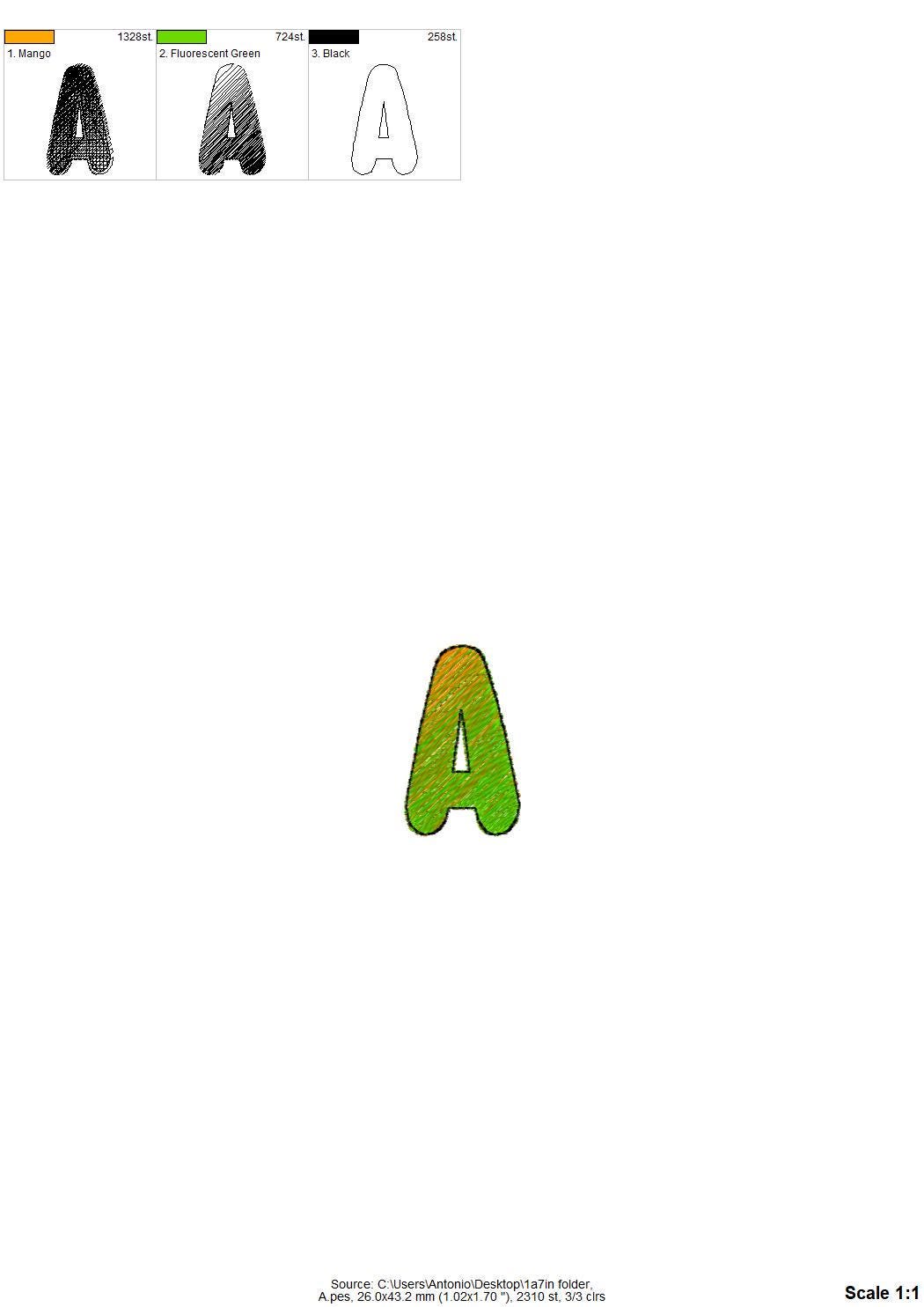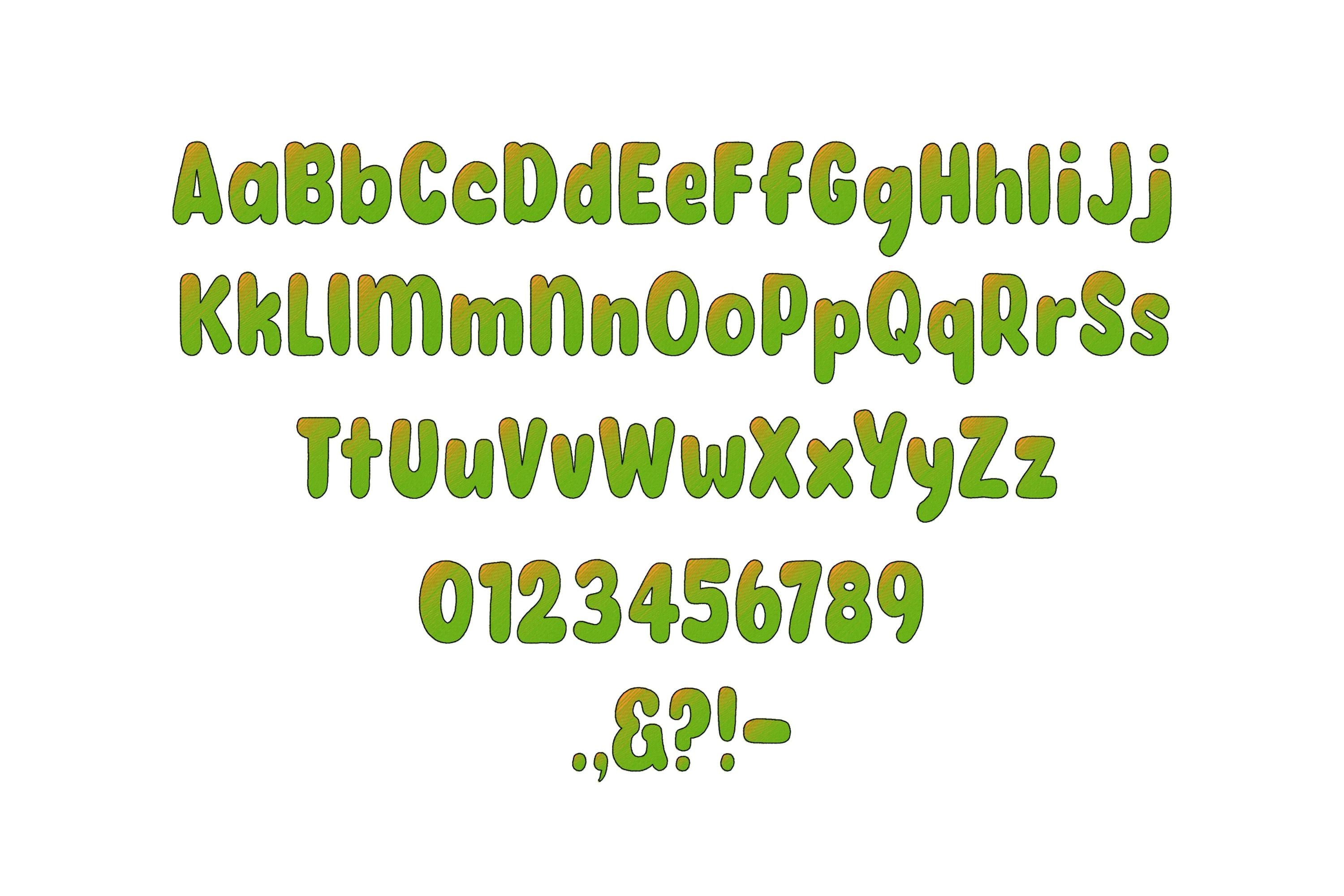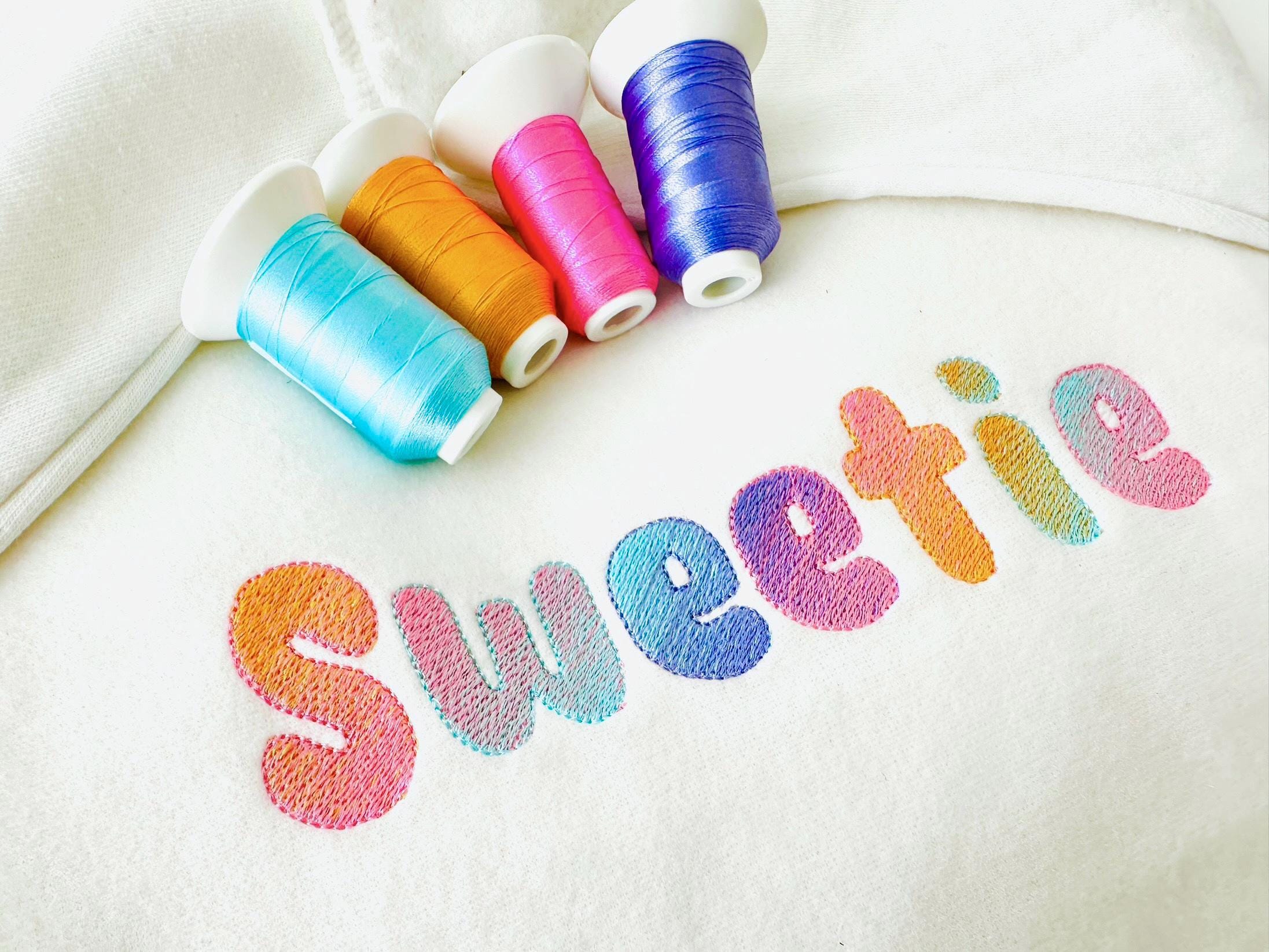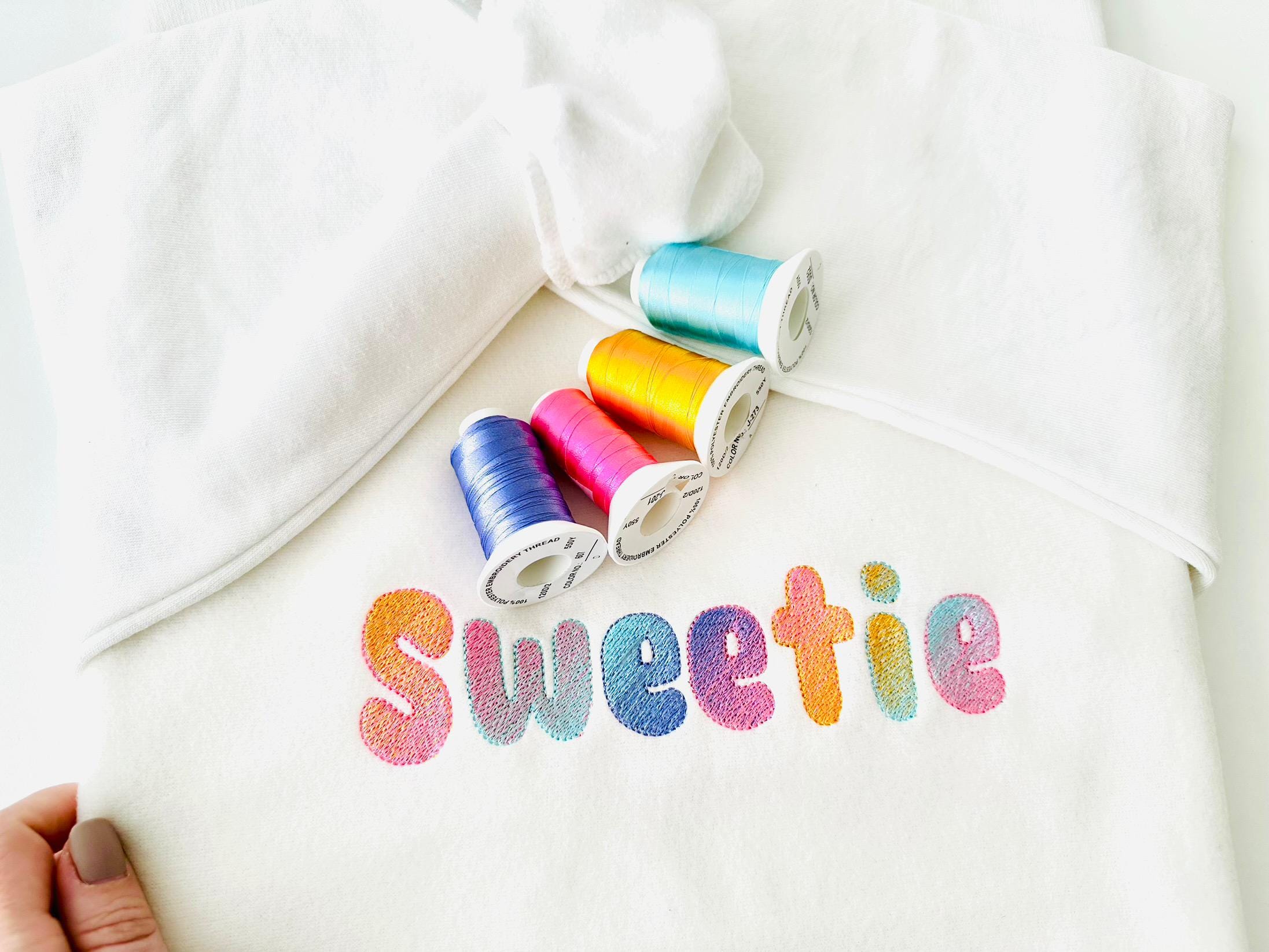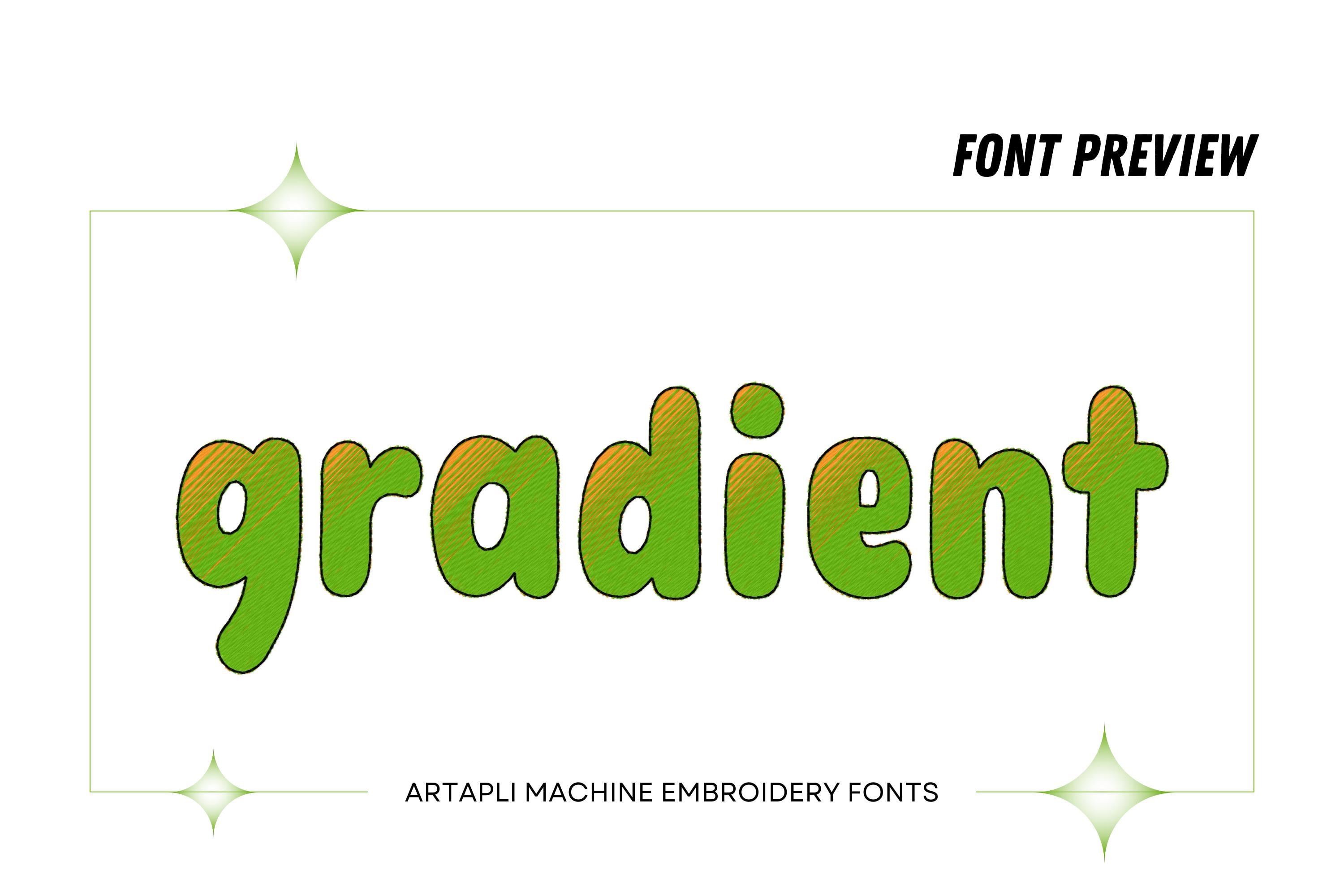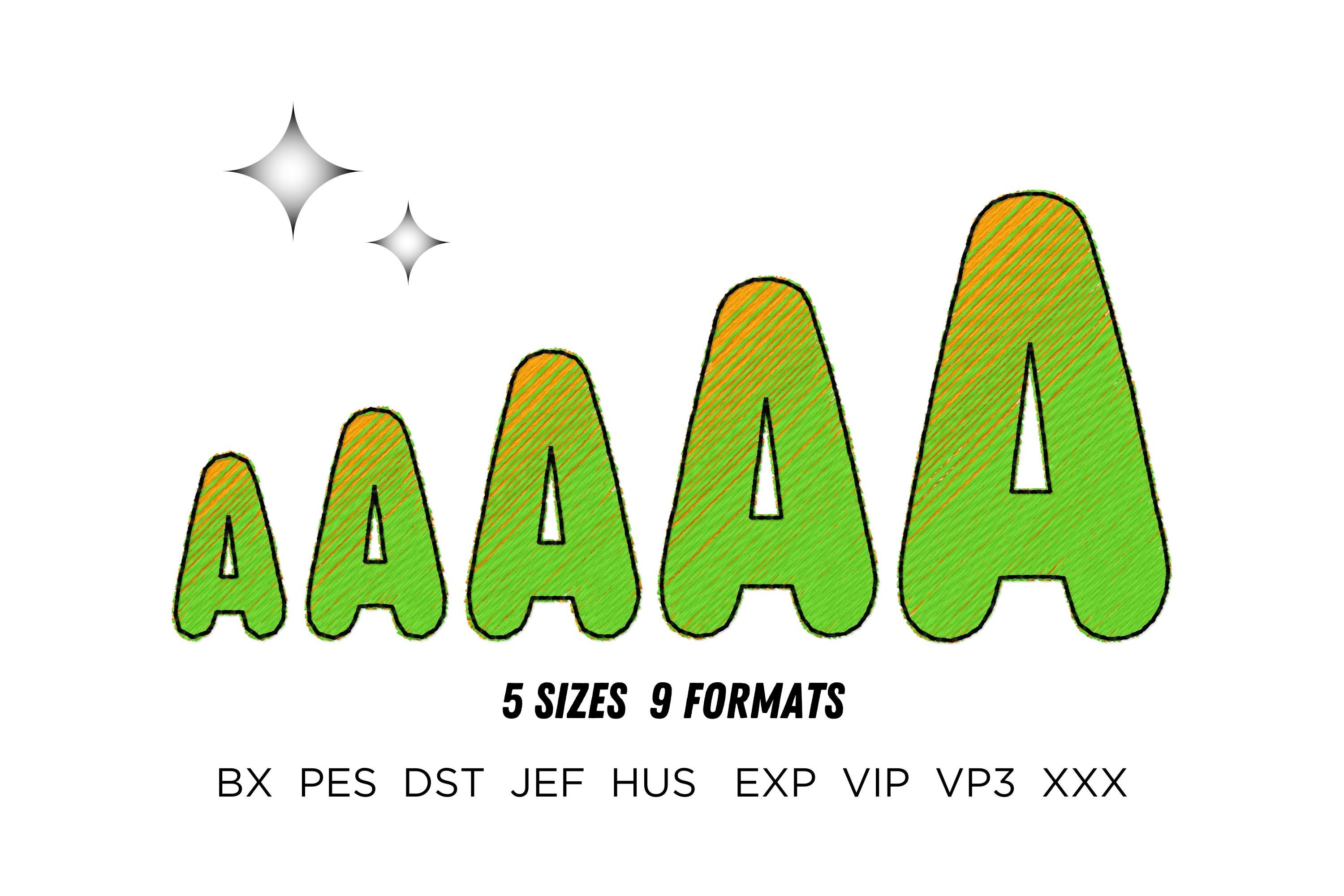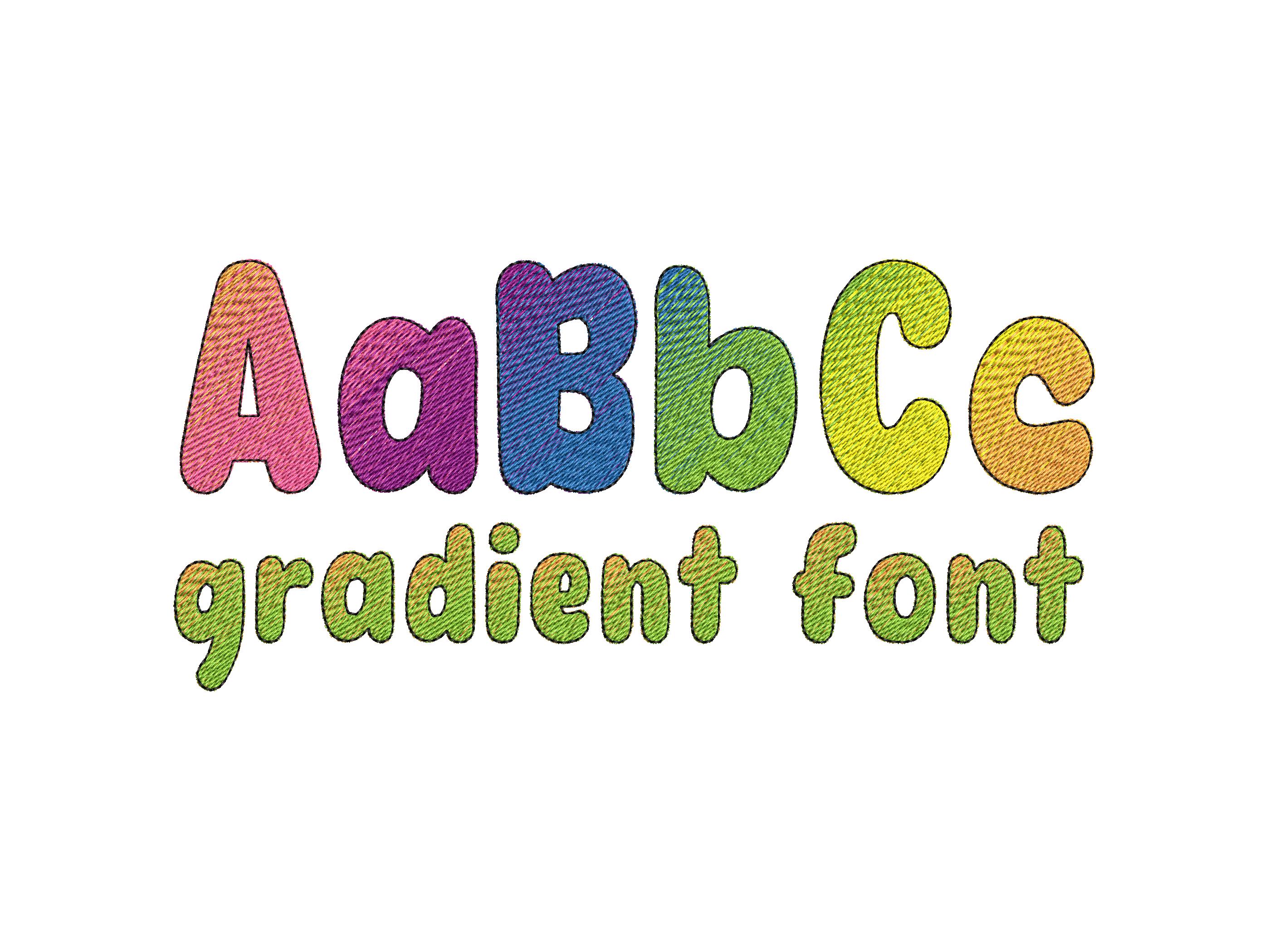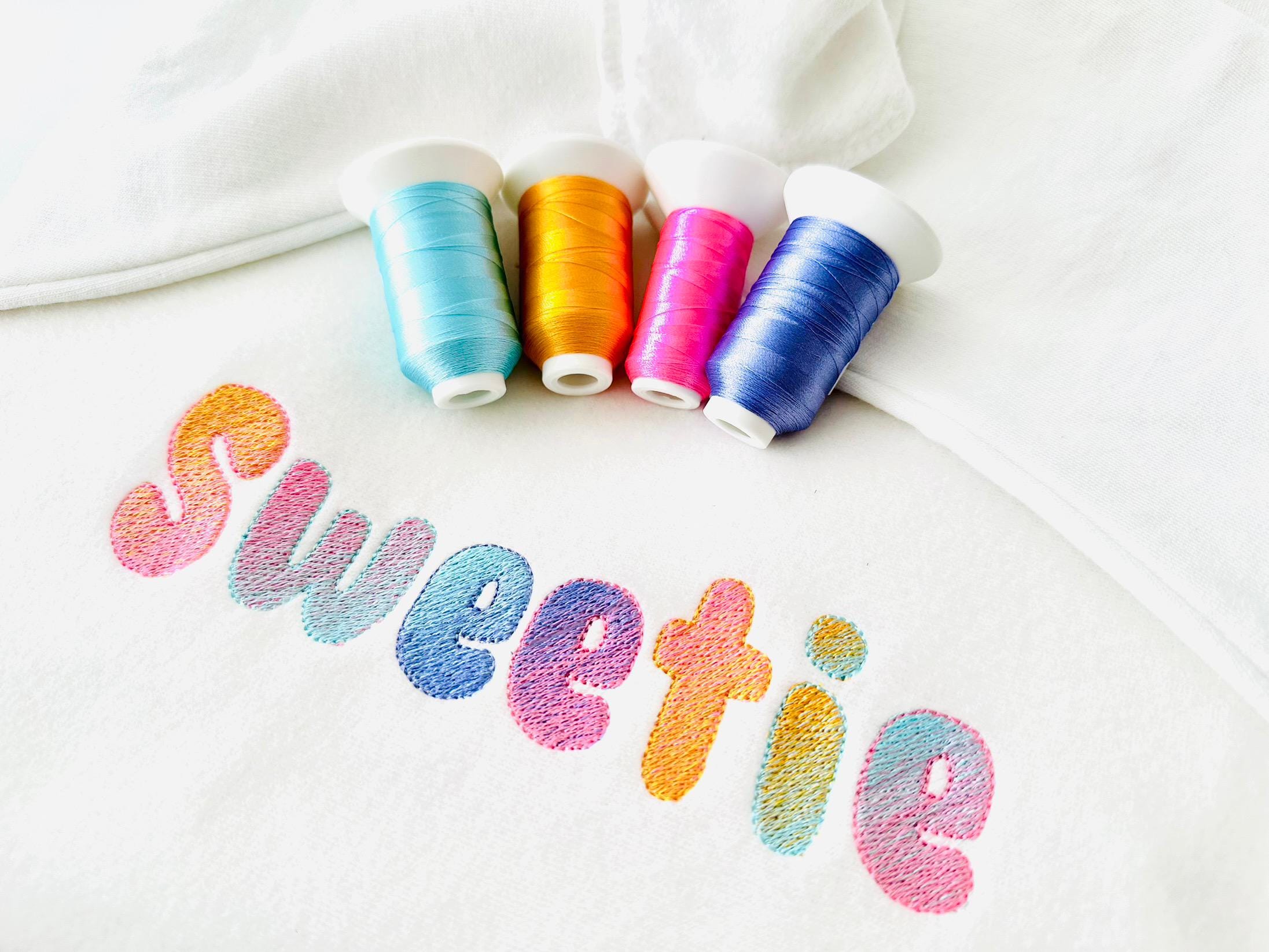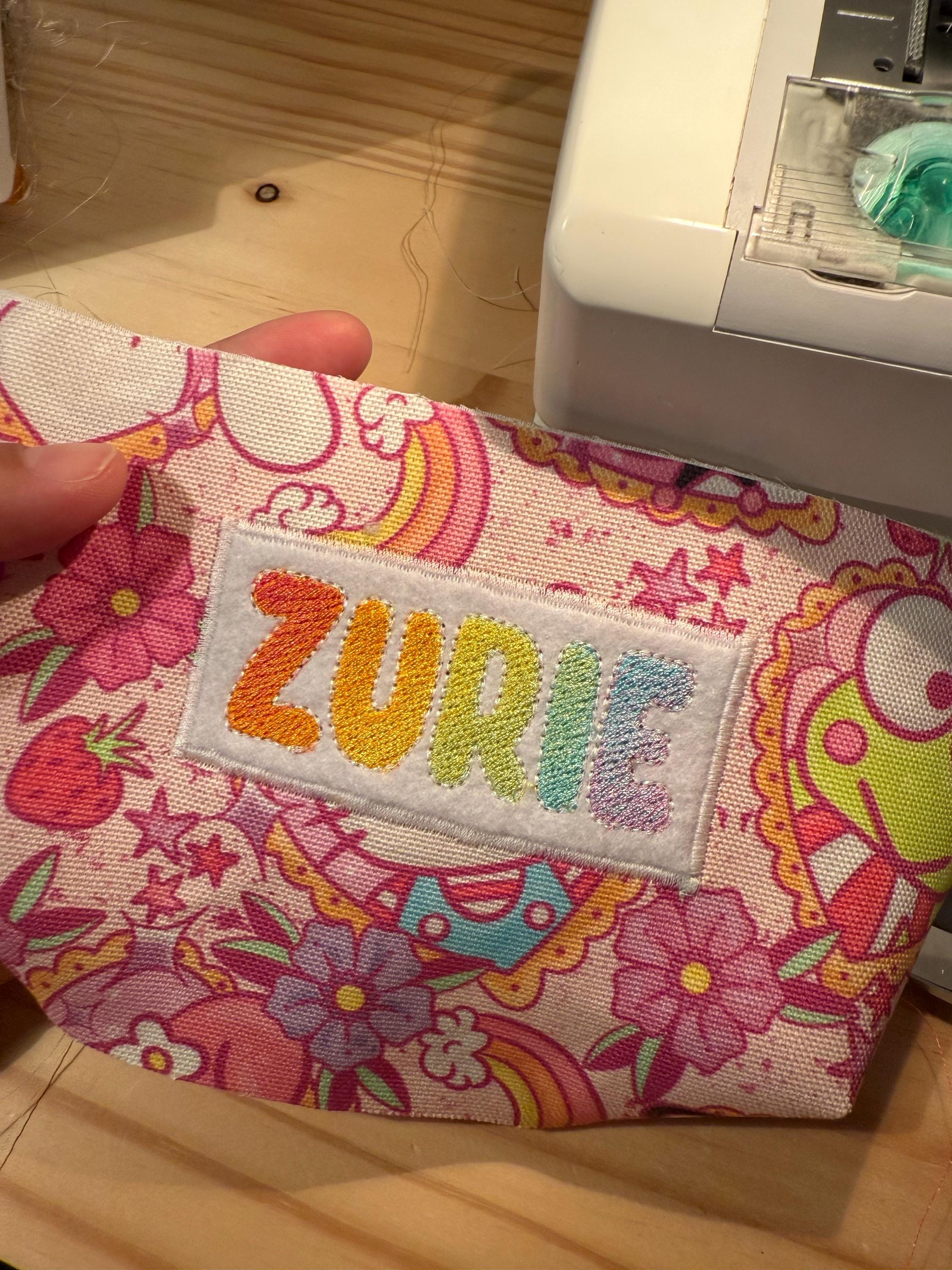
Gradient Font NO special thread ombre iridescent effect 2 Color Monogram alphabet letters machine embroidery designs mini sizes 0.8 up to 2.2 inches, BX included
No special thread needed!
This font uses regular solid-color threads (not multicolored), and it looks amazing! Each letter is stitched with two different colors to create a beautiful iridescent effect.
The design itself creates this unique look—one side of the letter is stitched in one color, the other side in a second color, and then it’s finished off with a clean outline. It’s a simple technique that gives stunning results!
Whole alphabet A-Z uppercase and lowercase letters, numbers 0-9, and punctuation.